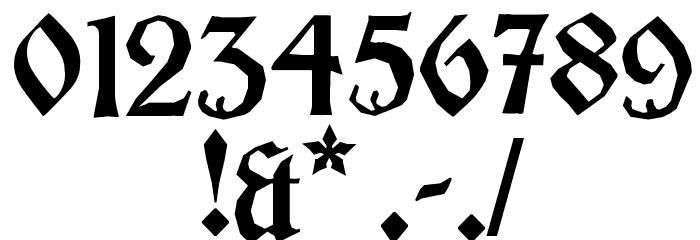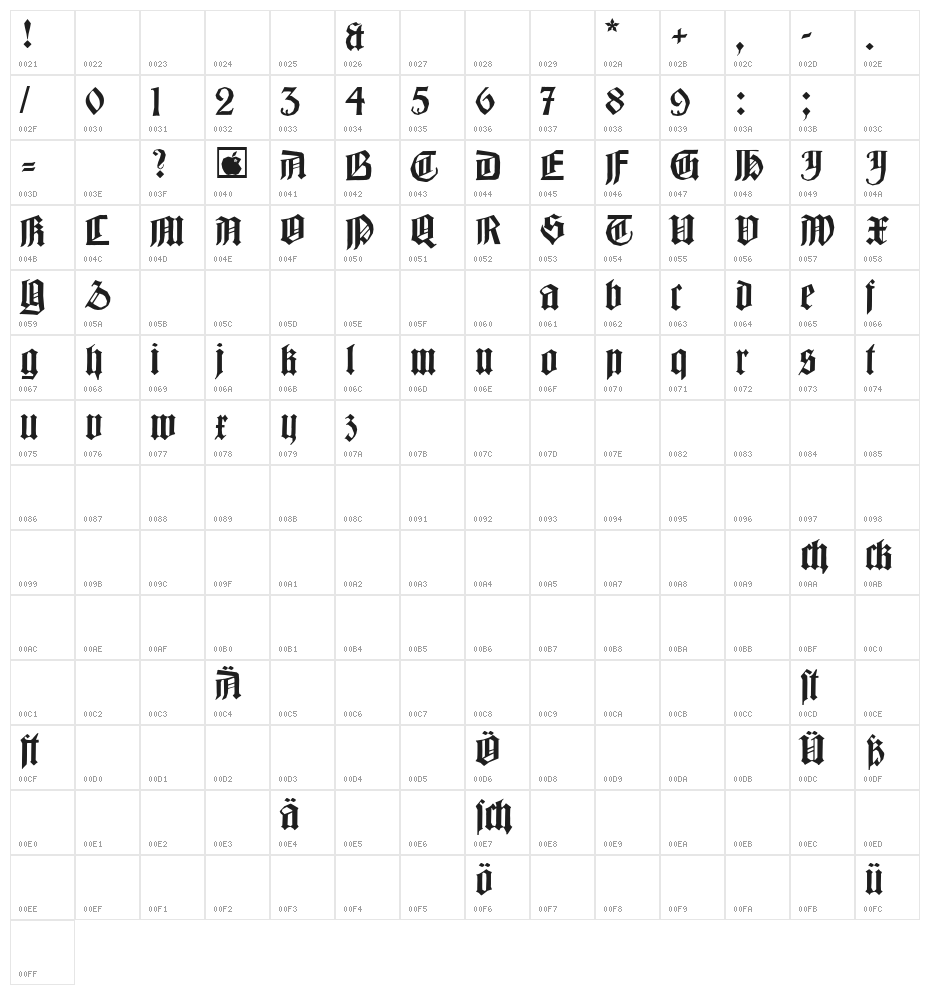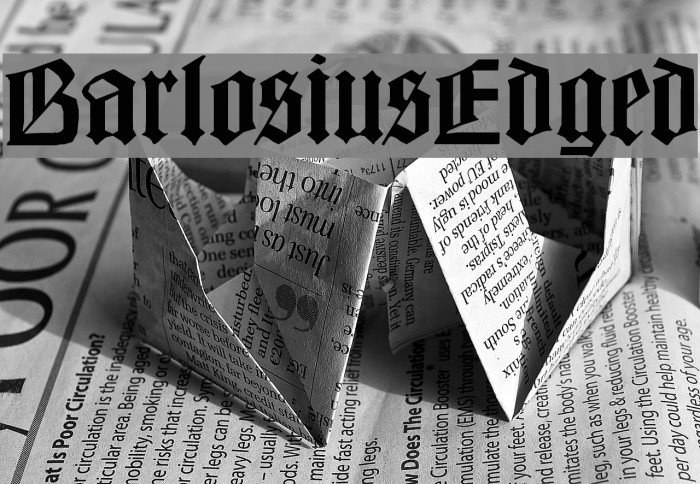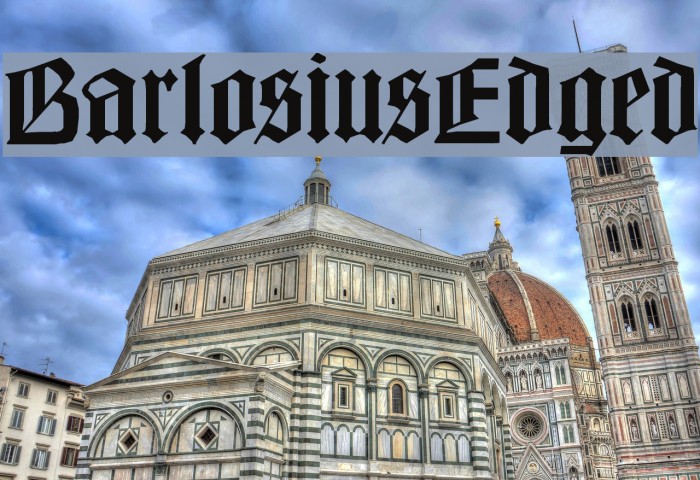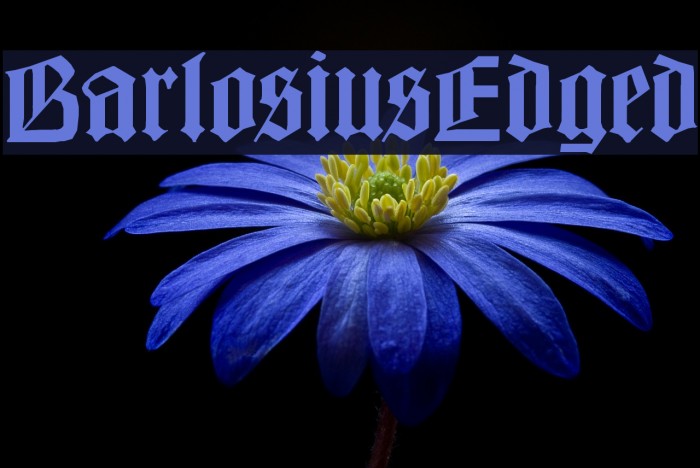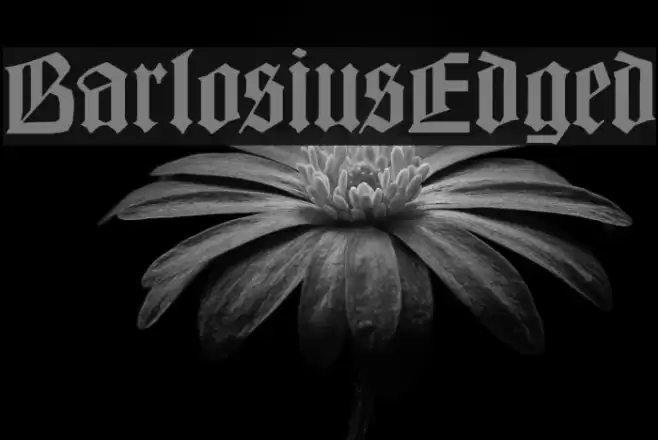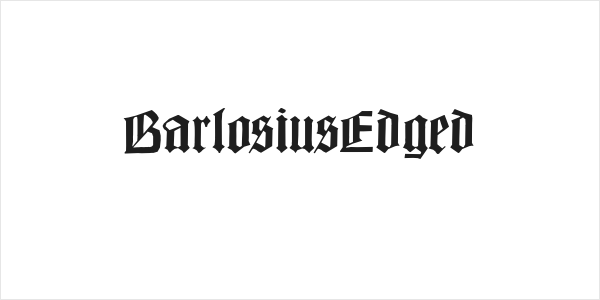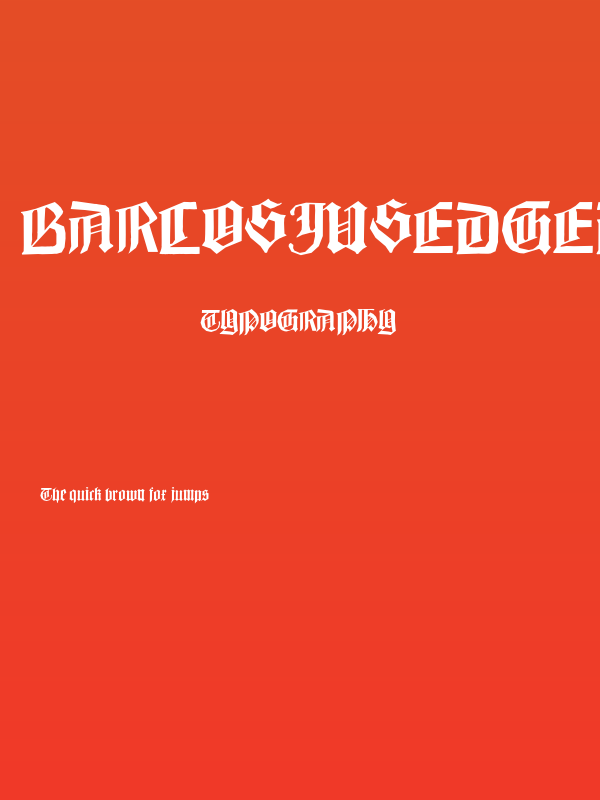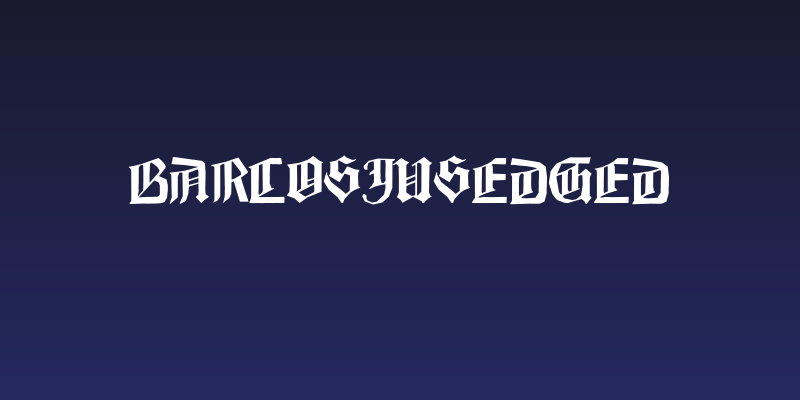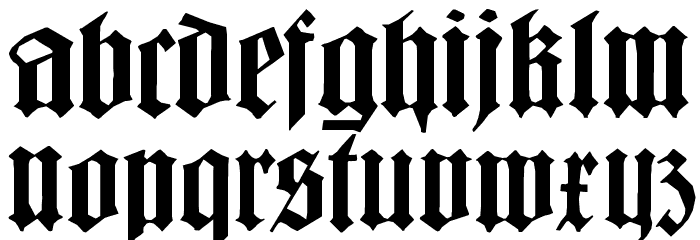
BarlosiusEdged Font
BarlosiusEdged Description
This font features a bold and dramatic blackletter style, characterized by its sharp, angular lines and intricate detailing. The uppercase letters exhibit a strong presence with their tall, narrow forms and pointed serifs, while the lowercase letters maintain a consistent style with slightly more rounded edges. The numerals are equally bold, maintaining the font's gothic aesthetic. Special characters are designed with the same attention to detail, ensuring a cohesive look throughout. This font is perfect for creating a striking visual impact, evoking a sense of tradition and authority.